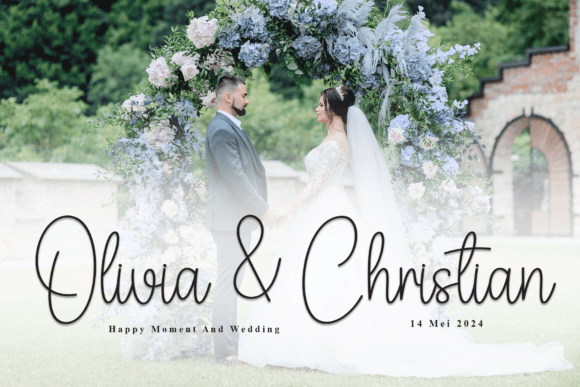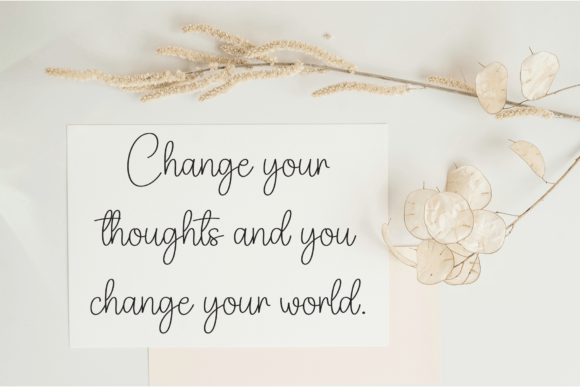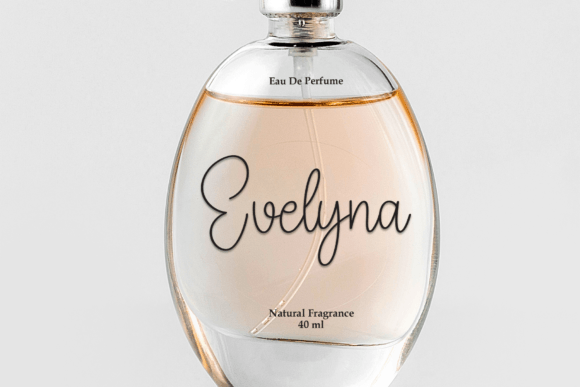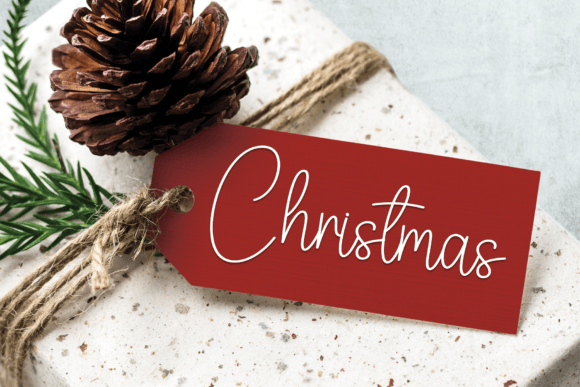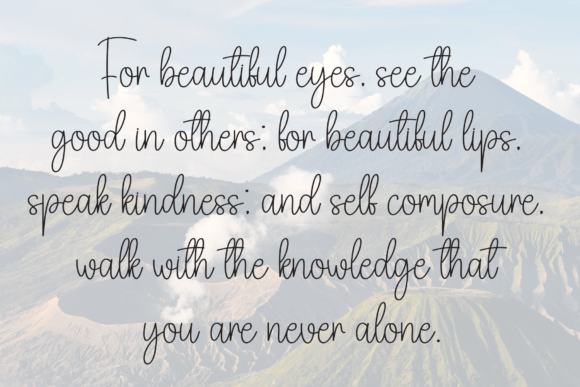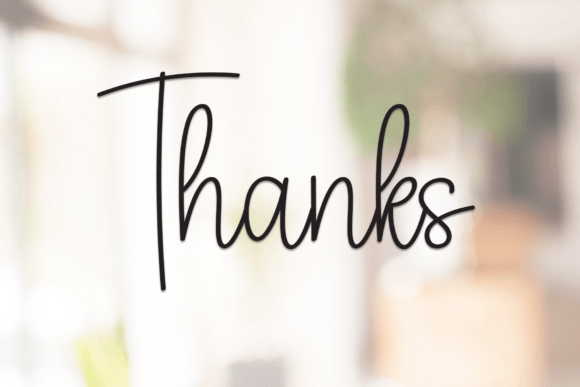
Introducing Daylight Font: Elevate Your Designs with Elegance and Sophistication
In the world of typography, a font can make or break a design. For those seeking a touch of elegance and sophistication, Daylight Font is an exceptional choice. This stylish and incredibly elegant script font is perfect for adding a handwritten touch to various designs, including wedding invitations, thank you cards, quotes, greeting cards, logos, business cards, and more.
The Beauty of Daylight Font
Daylight Font boasts a unique and captivating aesthetic that is sure to leave a lasting impression. Its elegant script style exudes refinement and poise, making it an ideal choice for designs that require a level of sophistication. The font’s flowing lines and delicate curves create a beautiful, hand-written look that adds a personal touch to any design.
Wedding invitations, save-the-date cards, and thank you notes are just a few examples of where Daylight Font shines. Its romantic and whimsical feel makes it perfect for capturing the essence of special occasions. Designers can use this font to create stunning wedding stationery, elegant event branding, and beautiful party decorations.
Versatility Beyond Wedding Designs
While Daylight Font excels in wedding and event designs, its versatility extends far beyond. This font can be used in a wide range of applications, including:
- Quotes and typography posters: Add a touch of elegance to inspirational quotes, lyrics, or poems with Daylight Font.
- Greeting cards and stationery: Create beautiful birthday cards, Christmas cards, or thank you notes with a personal touch.
- Logos and branding: Use Daylight Font to create sophisticated logos, business cards, or letterheads for luxury brands.
- Digital and print media: Enhance your blog, social media, or magazine designs with the elegant look of Daylight Font.
Why Choose Daylight Font?
With so many fonts available, why choose Daylight Font? Here are a few compelling reasons:
- Unique and elegant style: Daylight Font offers a distinctive and refined aesthetic that sets it apart from other script fonts.
- Highly versatile: This font can be used in a wide range of applications, from wedding designs to logos and branding.
- Easy to read: Despite its elegant style, Daylight Font remains clear and easy to read, making it perfect for body text and captions.
Tips for Using Daylight Font
To get the most out of Daylight Font, consider the following tips:
- Pair with complementary fonts: Combine Daylight Font with clean, sans-serif fonts to create visual interest and contrast.
- Experiment with colors: Try pairing Daylight Font with soft pastels, metallic colors, or rich jewel tones to add depth and elegance to your designs.
- Play with textures and patterns: Add a tactile feel to your designs by incorporating textures, watercolor patterns, or subtle backgrounds.
Daylight Font is an exceptional choice for designers and crafters seeking to add a touch of elegance and sophistication to their work. With its unique and captivating aesthetic, versatility, and ease of use, this font is sure to become a staple in your design toolkit. Whether you’re creating wedding stationery, logos, or greeting cards, Daylight Font is the perfect choice for those who value refinement and poise.